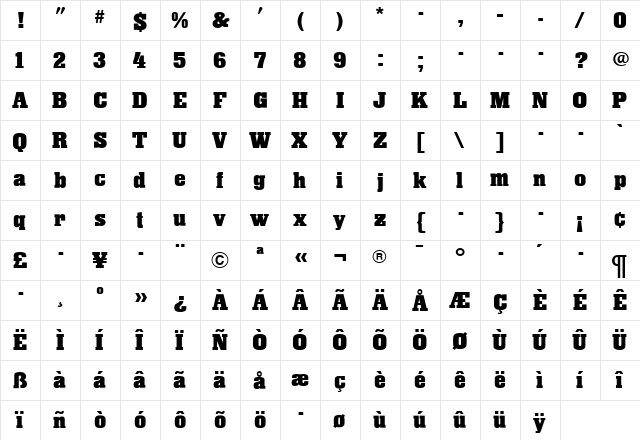
SuperbaBold Roman Font Preview
SuperbaBold Roman
Design Context for SuperbaBold Typeface
SuperbaBold takes a measured approach to typography — its balanced proportions and neutral character make it a reliable workhorse for both digital and print work. The heavy weight commands attention and anchors typographic hierarchies.